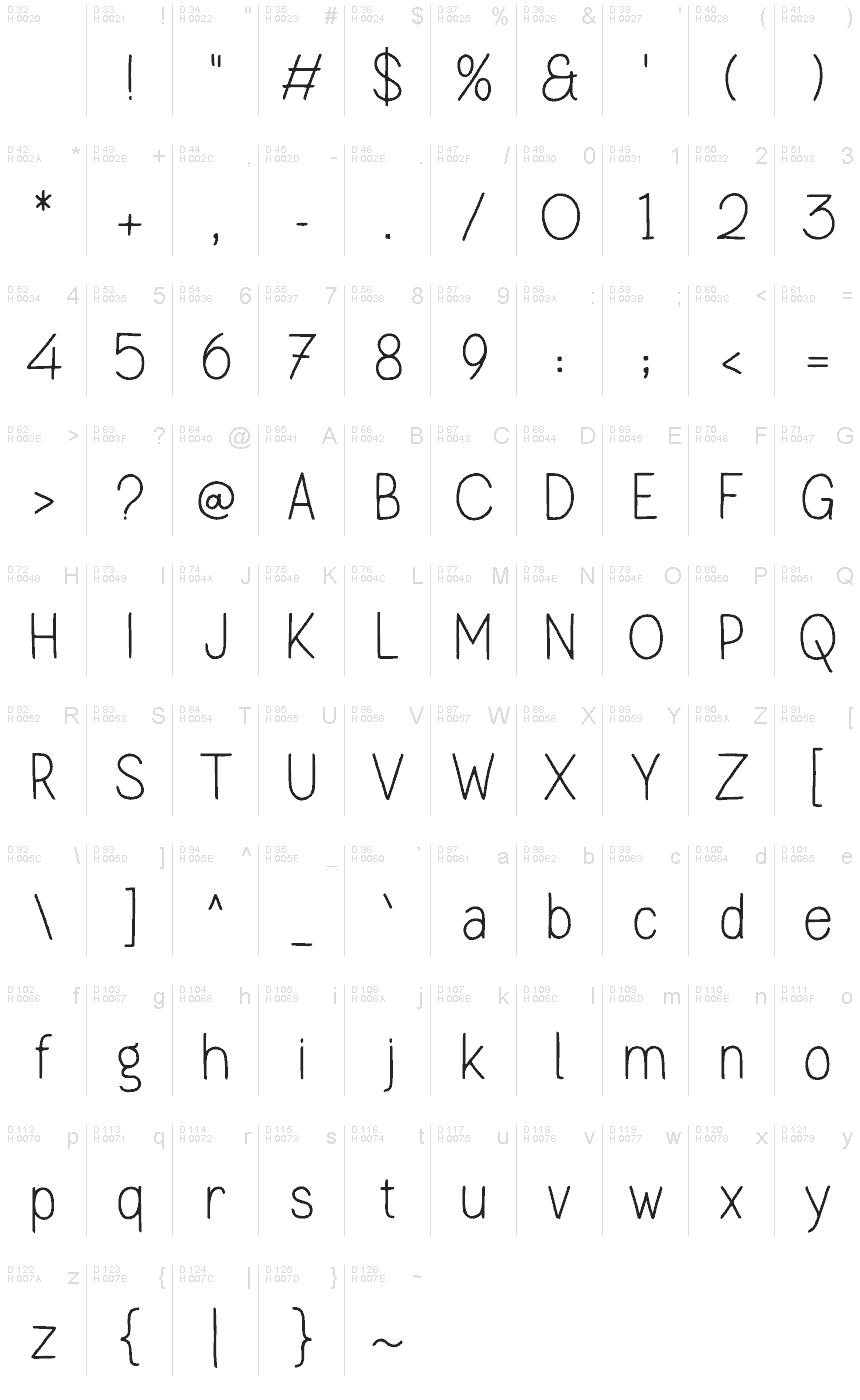
Tello Mallo
Tello Mallo font is a light handwritten typeface by Greentrik6789 that brings casualness wherever used. The font presents organic strokes and modern aesthetics as it flows naturally on the page. Approachable and friendly, the truly pleasant appearances make this a free handwritten font users will want to constantly employ in their upcoming projects.
This perfectly written script works best with invitations, greeting cards, blog posts, social media updates, printed tees or hoodies, packaging designs, and branding or visual identity creation. It should also do great for creating posters for special occasions.